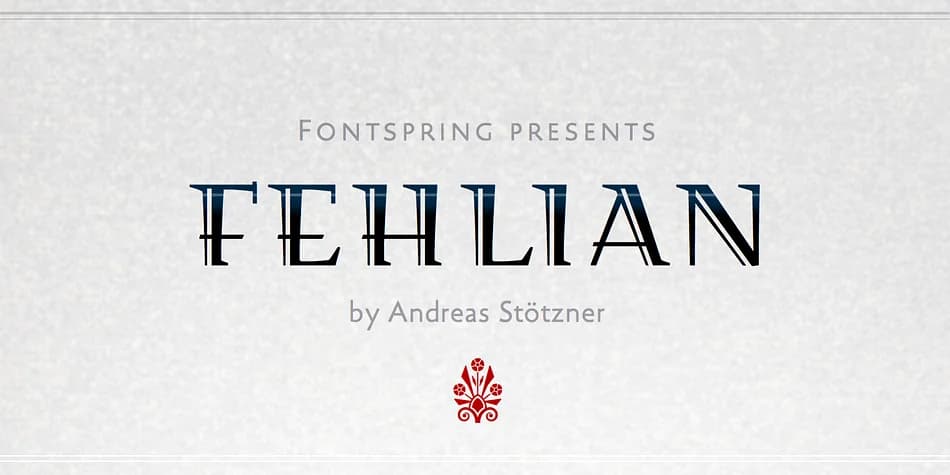
Art Deco geometry meets architectural precision in this display typeface, with letterforms that blend serif and sans elements into a cohesive, intentional voice. Fehlian, designed by Andreas Stötzner, brings this distinctive character to any project demanding both visual weight and refined sophistication.
The all-caps structure works beautifully across luxury wine labels, high-end jewelry packaging, boutique fashion headlines, and architectural signage where geometric strength naturally commands attention. This typeface speaks the language of premium branding, lending genuine gravitas to work that needs to feel both carefully designed and purposeful. Beyond the base font, you get two decorated variations that layer additional ornamental detailing onto the capitals, giving you flexible options when visual richness matters without forcing a complete font change. Every letter is completed with full Euro-Latin support for multilingual applications, making this genuinely practical for international design projects and diverse global markets.
Designers seeking to ground contemporary work in 1920s-inspired geometry will find Fehlian's refined strength truly invaluable for their toolkit. Its distinctive character reads as both historically informed and distinctly modern, suiting premium brand identities and display work that benefits from architectural precision combined with visual personality. Grab it on Creative Fabrica and start designing with this exceptional typeface.
FEHLIAN Font is a decorative font that shines as a display or heading face. Pair it with a clean sans-serif or serif font for body text — the contrast creates a clear hierarchy while the two styles stay balanced and easy to read.